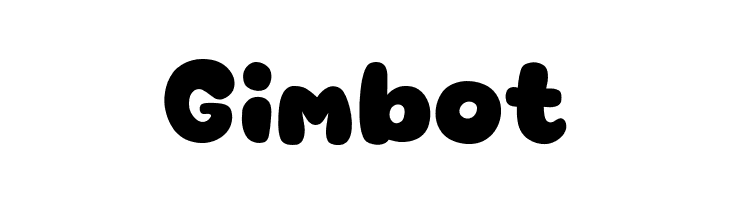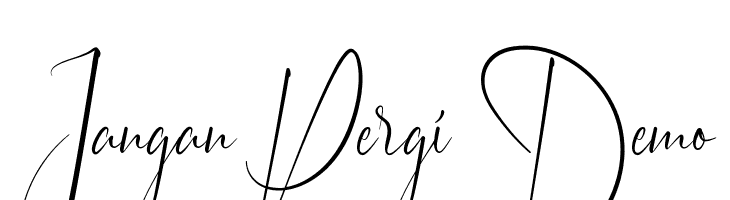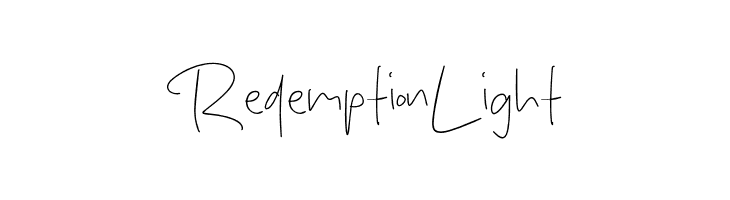
A modern, rounded geometric font with uniform strokes and a friendly appearance.
A playful handwritten font with a mix of slender uppercase and cursive lowercase letters.
A whimsical, rounded script font with a casual, handwritten feel.
A playful, hand-drawn font with bold, rounded strokes and a whimsical style.
A bold, decorative font with integrated bird motifs for a whimsical touch.
A playful, casual handwritten font with fluid, organic letterforms.
A modern, geometric sans-serif font with uniform width and clear characters.
A modern, bold, italic font with a sleek and slightly condensed design.